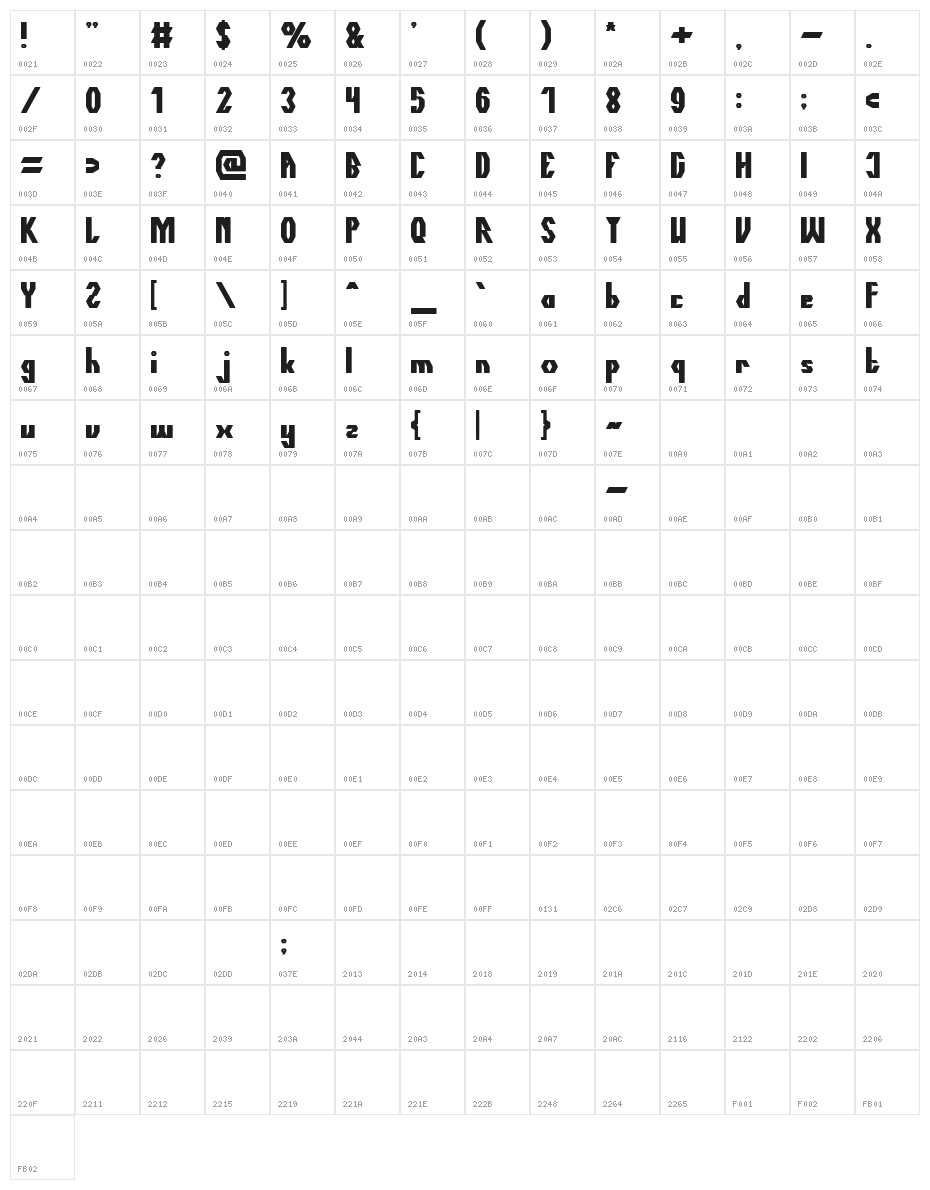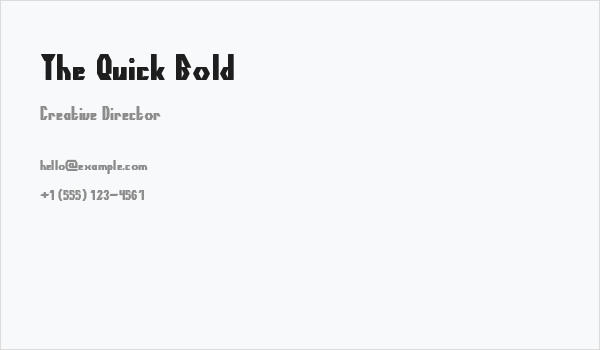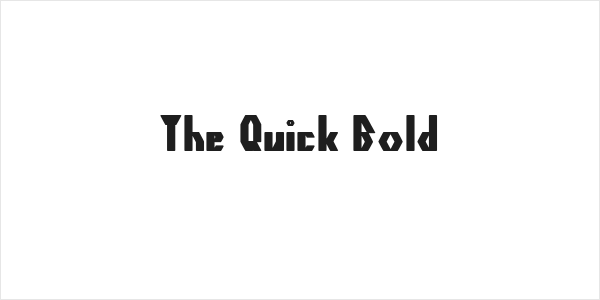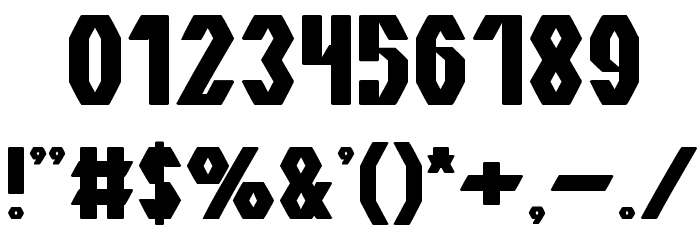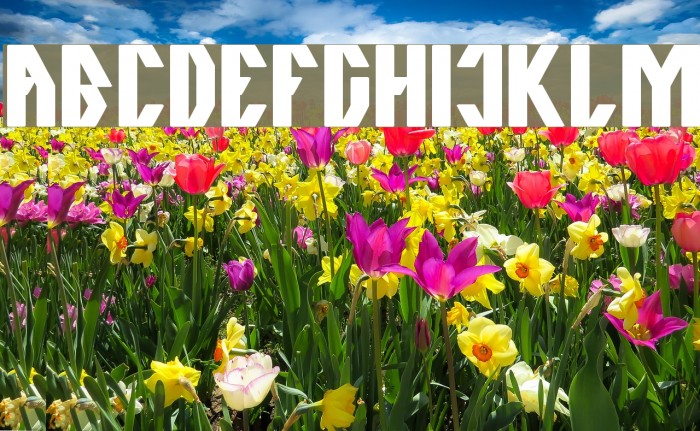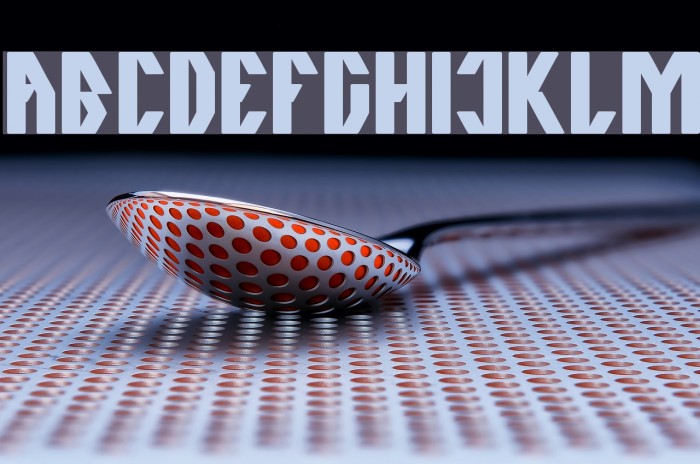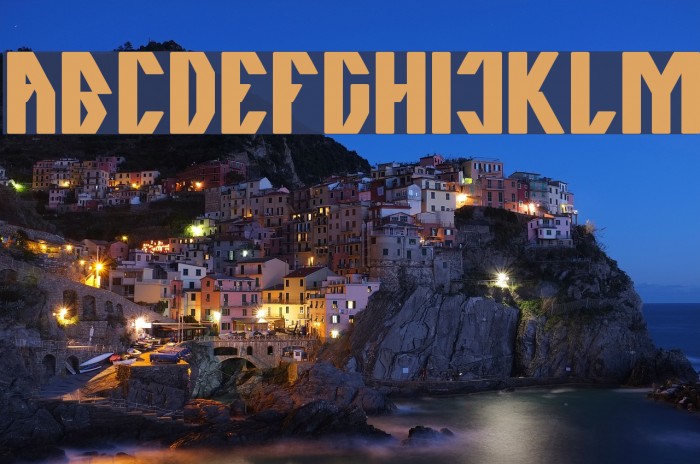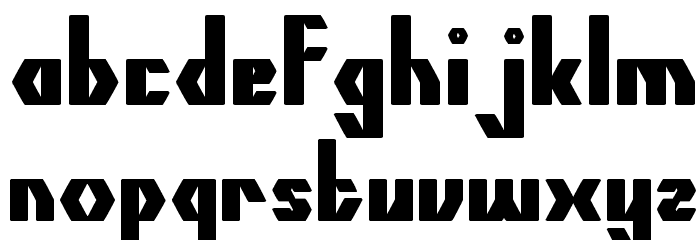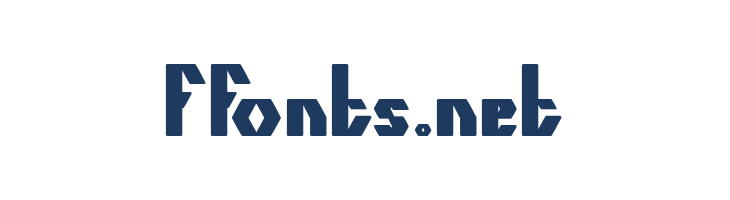
The Quick Bold Font
The Quick Bold Description
This bold, geometric font features strong, angular lines and a modern aesthetic. Each character is crafted with sharp edges and a distinct blocky appearance, making it highly legible and impactful. The uppercase and lowercase letters maintain a consistent style, with the lowercase offering a slightly more compact form. Numbers and special characters follow the same design principles, ensuring uniformity across all glyphs. The font's unique style is both eye-catching and versatile, suitable for a variety of design applications.
| Proposed Projects | Ideal for branding, poster design, headlines, and any project requiring a strong visual impact. |